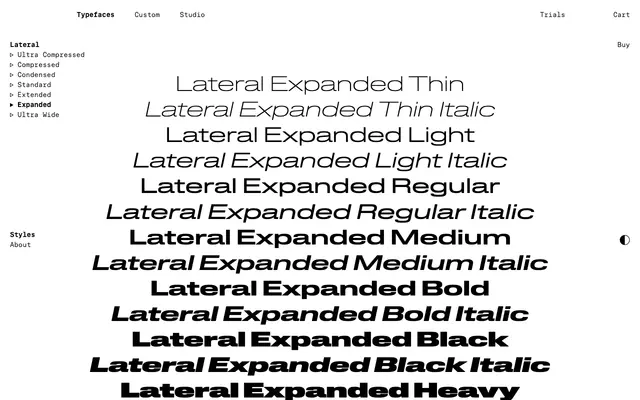
Lateral Expanded
The Expanded width of Lateral: a stretched neo-grotesque with wide horizontals, in seven weights with italics, sized for display use.
Lateral Expanded sits towards the wide end of the seven-width Lateral system. The flat segments at curve extremes are pulled into pronounced horizontal bars, giving the letterforms a slow, brutalist stance that the foundry mark out as display territory. Seven weights from Thin to Black with matching italics keep the cut versatile across hierarchy, and the wider Lateral variable font allows continuous interpolation between this width and Extended, Ultra Wide, and the rest of the system.
The Expanded width within the seven-width Lateral system; flat curve segments stretch into wide horizontals at expanded widths.